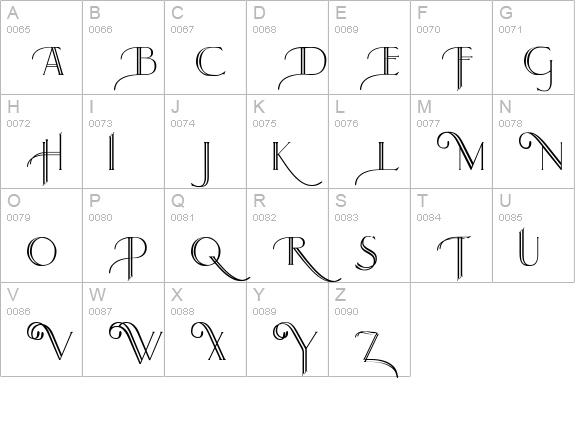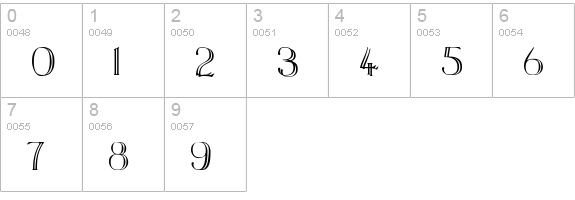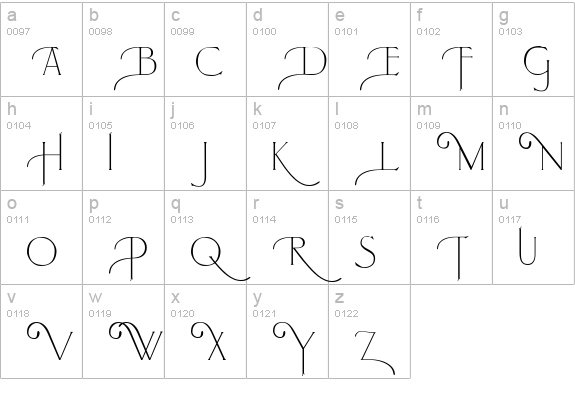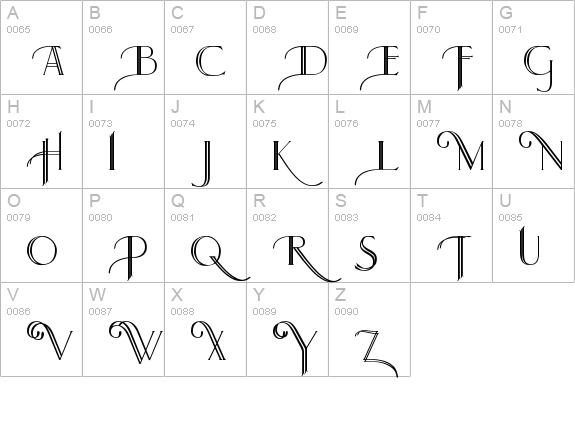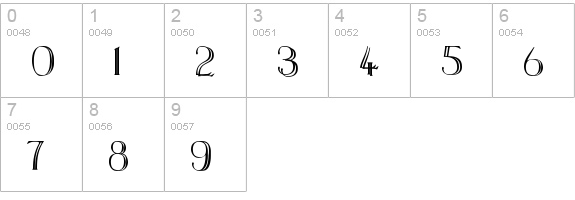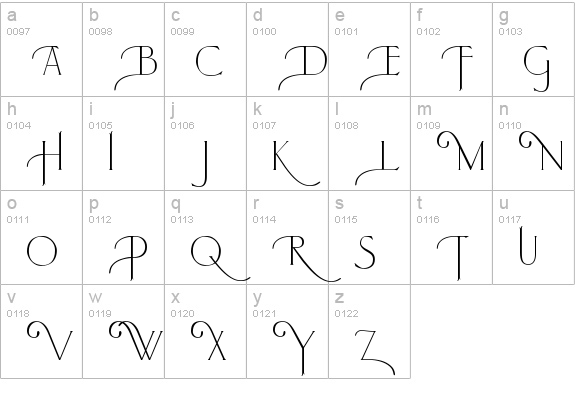
Larkin Capitals Font Details
Larkin Capitals font exudes elegance and sophistication with its timeless design. This classic typeface is perfect for adding a touch of refinement to any project, whether it be for invitations, branding, or editorial designs. Featuring beautifully crafted capital letters with delicate flourishes, Larkin Capitals font is sure to make a lasting impression. The best part? Larkin Capitals font is completely free to download at FontsMarket.com! So, you can elevate your designs without breaking the bank. Don't miss out on this opportunity to add a touch of class to your projects with Larkin Capitals font. Download it today and let your creativity shine!